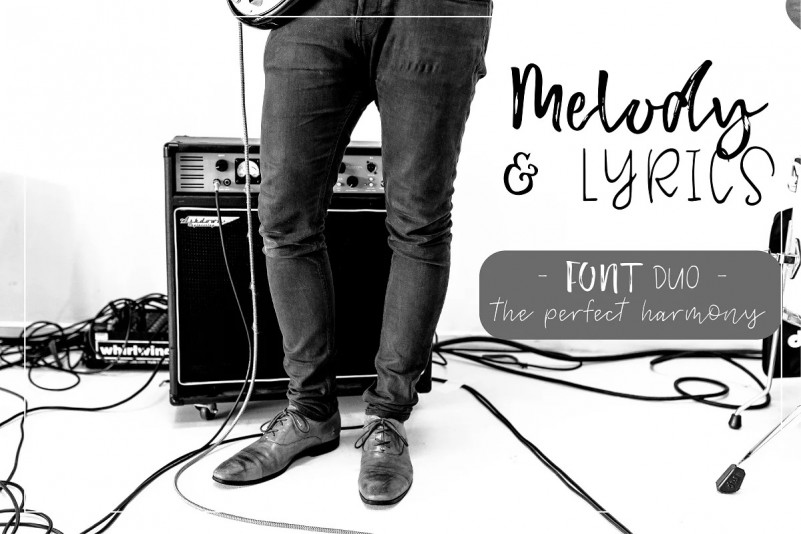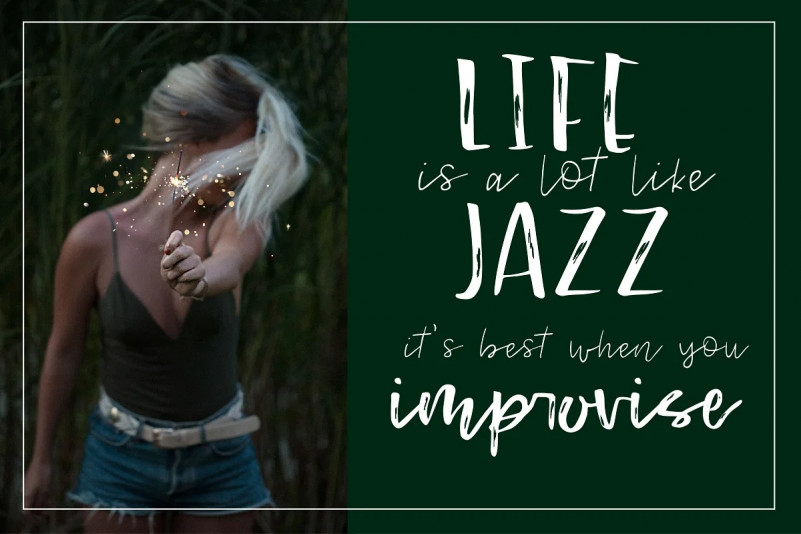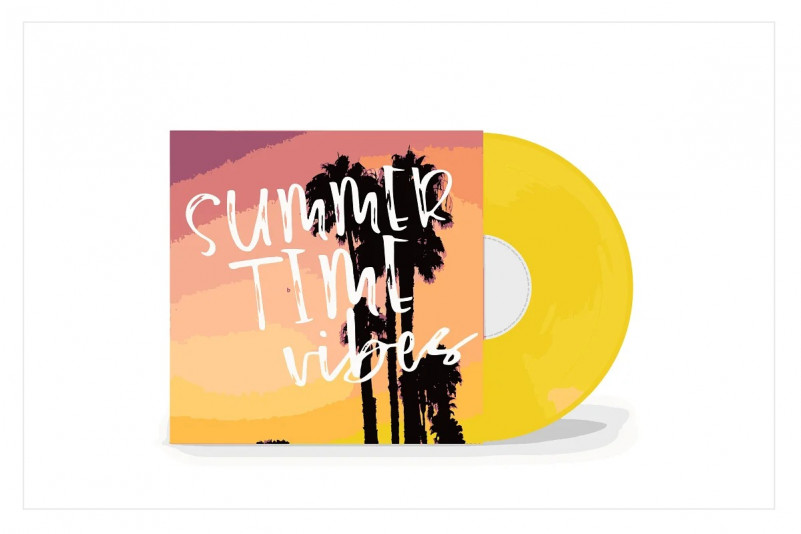
Melody & Lyrics Font
Say hello to Melody & Lyrics – a handmade font duo made with love. A brushy, sans serif script font duo with BONUS symbols font.
Melody & Lyrics includes standard characters as well as lowercase stylistic alternates and ligatures to create a different mood with your lettering.